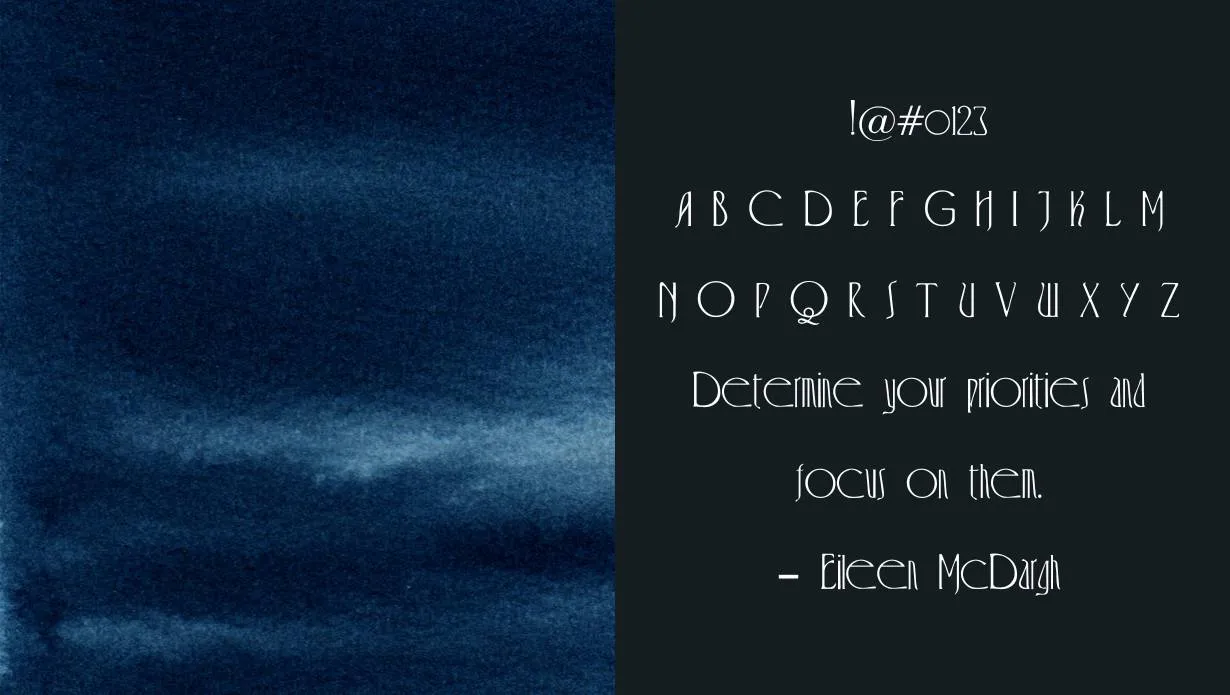
Virginia is a popular fancy font used in many branding and advertising campaigns. It was designed by a Woodcutter name designer in 1999. It has very unique features and functions because of its structure and glyphs.
The font has a unique fancy look that makes it stand out from other fonts. This font style is also helpful for making logos through Canva software. You can give your designs a marvelous touch then try to pair prime time font and make your designs astonishing.